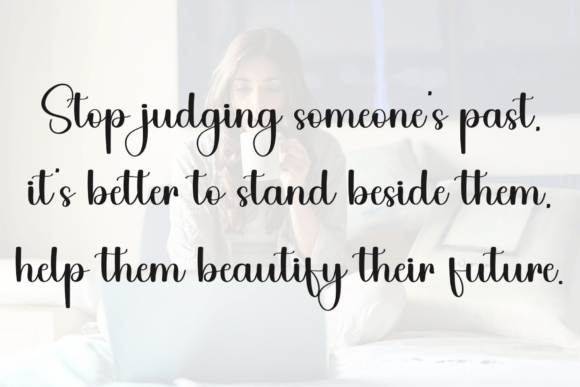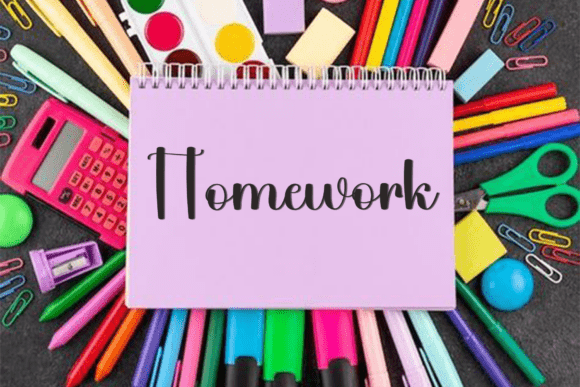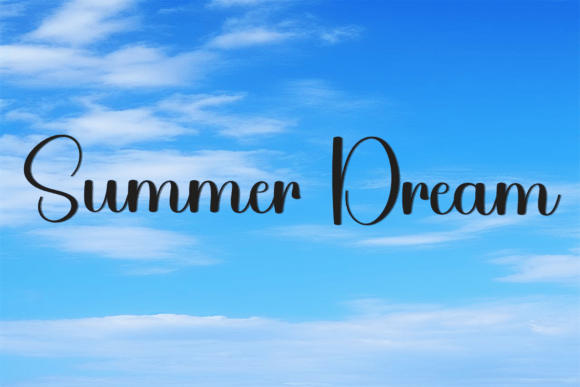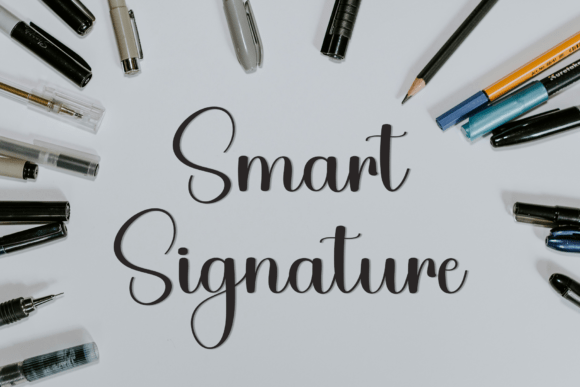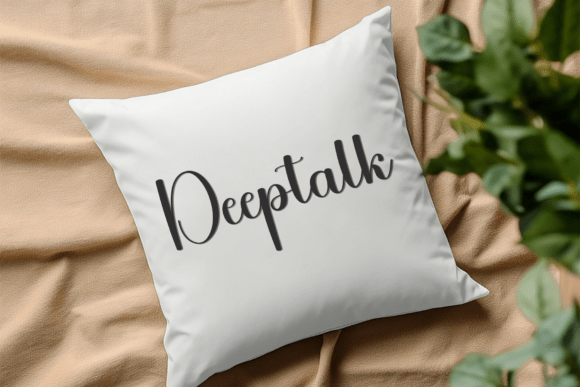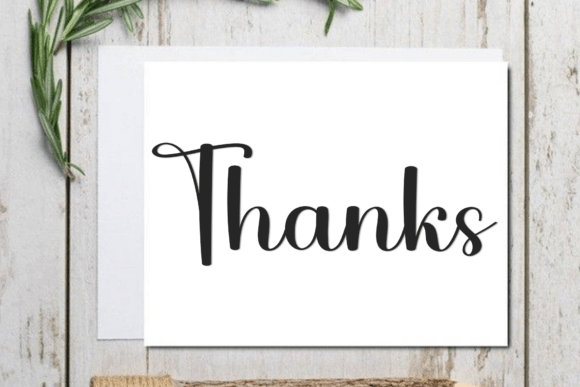
Introducing Christmas Font: The Ultimate Holiday Design Companion
As the holiday season approaches, designers and crafters are on the lookout for the perfect typography to capture the essence of Christmas. Look no further than Christmas Font, a delightful handwritten script font that embodies the warmth, magic, and festivity of the most wonderful time of the year. With its elegant curves and flowing strokes, this font is sure to bring a touch of holiday cheer to any design project.
A Perfect Blend of Modern and Classic
Christmas Font masterfully pairs a modern handwritten style with a touch of classic sophistication, making it an ideal choice for a wide range of design applications. Whether you’re creating holiday cards, gift tags, invitations, posters, packaging, or seasonal branding, this font adds a personal and heartfelt feel that resonates with the spirit of the season. Its smooth lines and balanced structure ensure readability while maintaining a sense of elegance and playfulness, making it perfect for both print and digital creations.
Versatility and Beauty in Every Letter
One of the standout features of Christmas Font is its versatility. Whether you’re designing a festive holiday card or a cheerful gift tag, this font shines in every application. Its elegant curves and flowing strokes bring a sense of joy and celebration to any design, making it the perfect choice for projects that aim to spread love, joy, and togetherness. From formal invitations to playful packaging, Christmas Font is the ultimate design companion for the holiday season.
PUA-Encoded for Effortless Design
Christmas Font is also PUA-encoded, ensuring effortless access to all glyphs, swashes, and alternate characters. This means that designers can easily access a wide range of design elements, from elegant swashes to playful alternate characters, to add a personal touch to their creations. With PUA encoding, you can unlock the full potential of Christmas Font and take your holiday designs to the next level.
Whether you’re a professional designer or a crafter looking to add a personal touch to your holiday projects, Christmas Font is the perfect choice. Its user-friendly design and PUA encoding make it easy to use, even for those without extensive design experience. With Christmas Font, you can create stunning holiday designs that capture the essence of the season, without spending hours agonizing over typography.
So, what can you create with Christmas Font? The possibilities are endless! Here are a few ideas to get you started:
- Holiday cards and invitations: Create stunning holiday cards and invitations that set the tone for your festive celebrations.
- Gift tags and wrapping paper: Add a personal touch to your gifts with custom gift tags and wrapping paper featuring Christmas Font.
- Posters and flyers: Create eye-catching posters and flyers that promote your holiday events or sales.
- Packaging and branding: Elevate your holiday packaging and branding with a touch of festive flair.
- Digital creations: Use Christmas Font to create festive digital creations, such as social media graphics, email newsletters, and more.